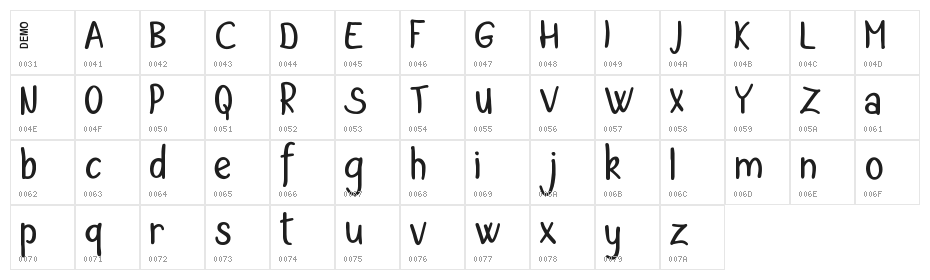
Balton Demo Font
Balton Demo Description
This font features a playful and informal style, characterized by its hand-drawn appearance. The letters have a slightly irregular shape, giving them a whimsical and casual feel. The strokes are bold and consistent, with a moderate contrast between thick and thin lines. The overall design is approachable and friendly, making it suitable for projects that require a personal touch. The font maintains a consistent baseline, with some letters extending slightly above or below, adding to its charm. It is versatile enough to be used in various creative projects, from children's books to playful branding.
| Proposed Projects | Ideal for children's books, playful branding, greeting cards, and informal invitations. |